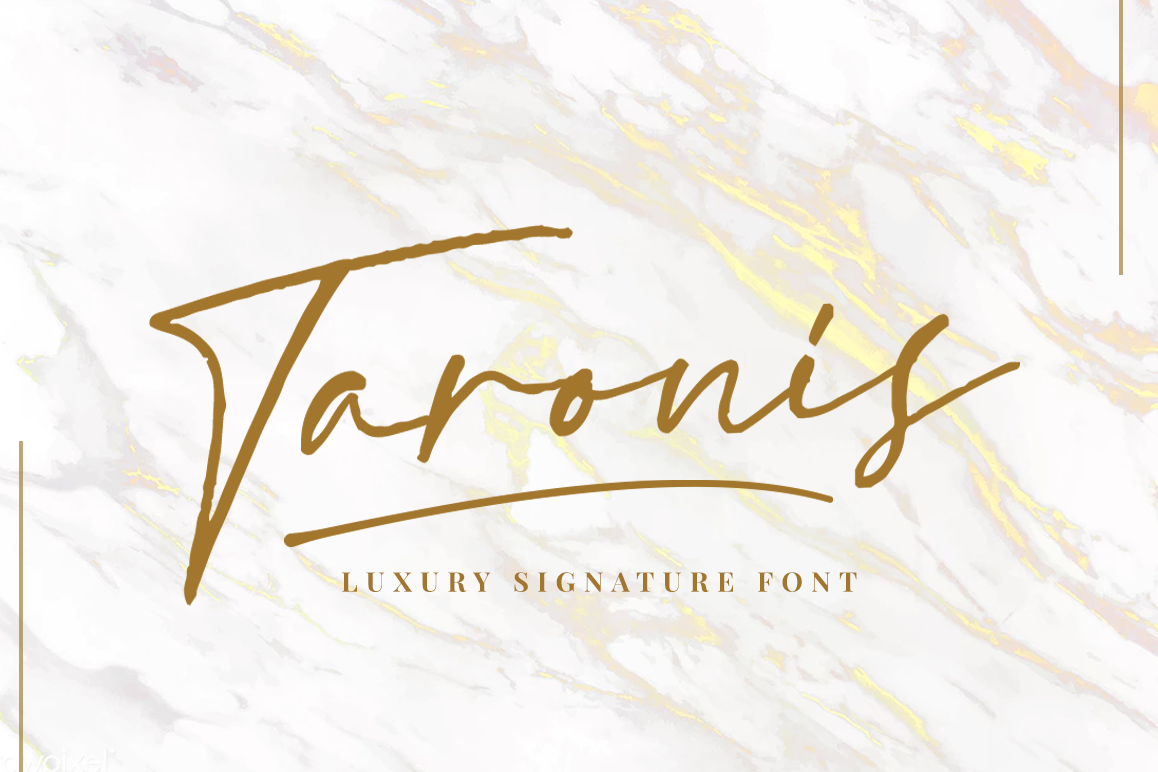
Taronis Signature Font
Introducing of our new product the name is Taronis Signature Font.
Inspired by signature and stylish handwriting, perfect for many different project such as logos & branding, invitation, stationery, wedding designs, social media posts, advertisements, product packaging, product designs, label, photography, watermark